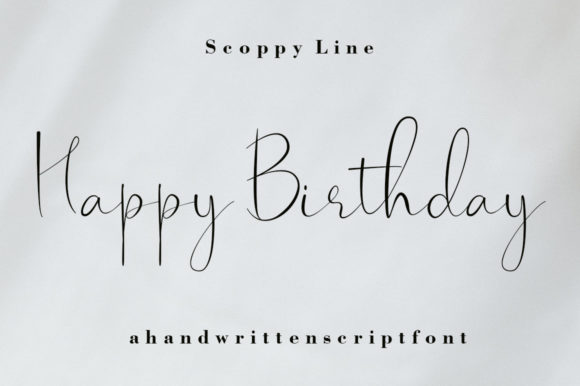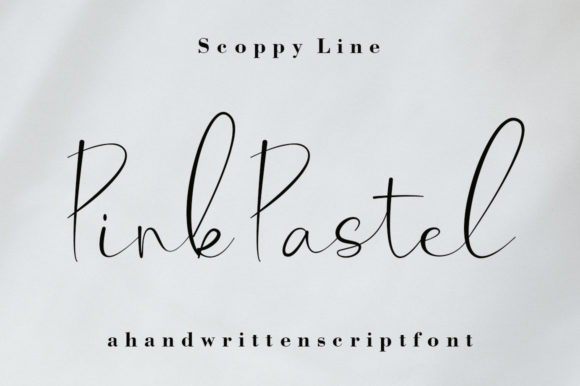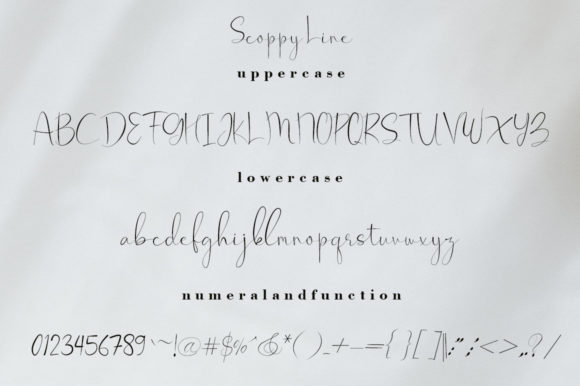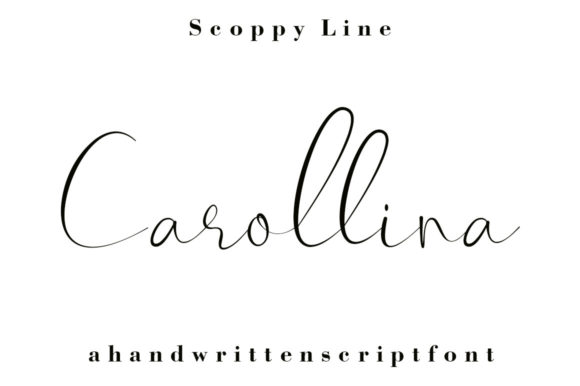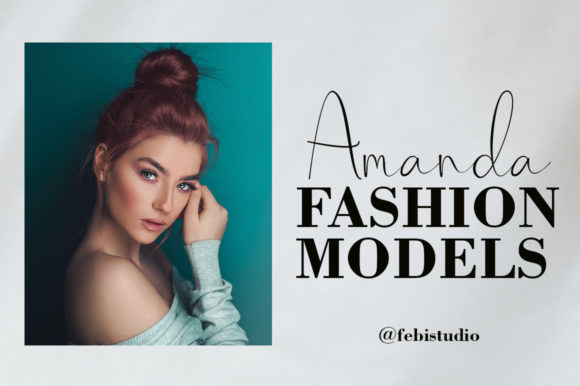
Scoppy Line Font
About Scoppy Line Font
Scoppy Line font is a captivating free-flowing script font meticulously crafted for enhancing various design projects. Whether you’re creating packaging products, invitation cards, flyers, mock-ups, event posters, or any other creative endeavor, Scoppy Line font offers high-quality typography that adds a touch of elegance and sophistication.
One of the defining features of Scoppy Line font is its fluidity and versatility. Its free-flowing script style makes it suitable for a diverse range of applications, seamlessly adapting to both print and digital media contexts. This font effortlessly enhances the visual appeal of your projects while leaving a lasting impression on your audience.
Moreover, Scoppy Line font boasts beautifully balanced characters, enhancing readability and ensuring a harmonious visual experience. Its well-crafted design makes it compatible with a wide pool of design styles, allowing it to effortlessly complement various aesthetics and creative concepts.
In summary, Scoppy Line font is a remarkable script typeface tailored for projects that demand high-quality typography. With its captivating design and versatile nature, it serves as a valuable asset for designers seeking to elevate their creations across different platforms and applications. Let Scoppy Line font inspire your next design endeavor and witness the transformative power of exceptional typography!